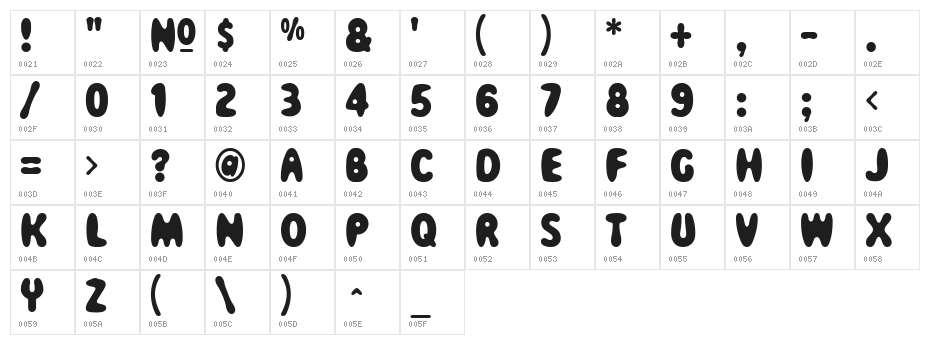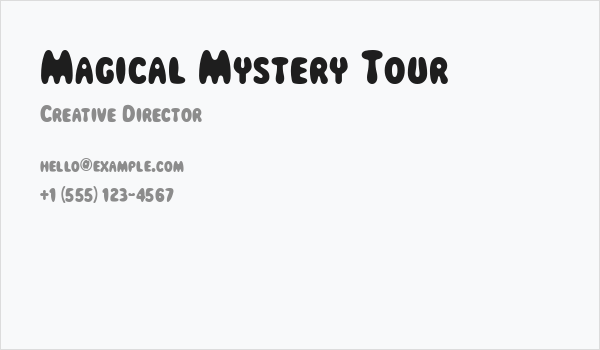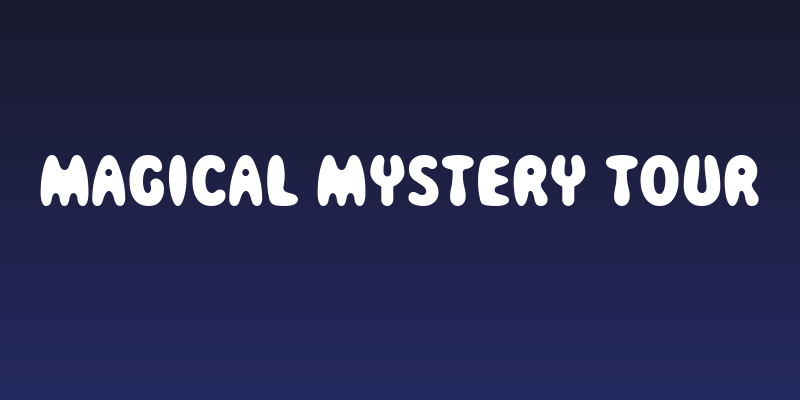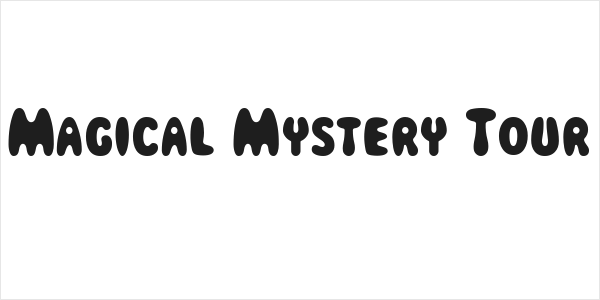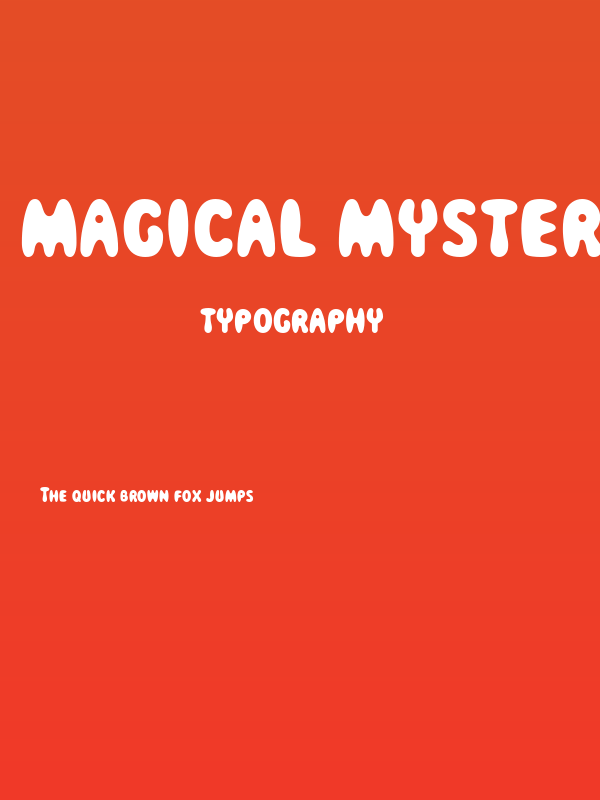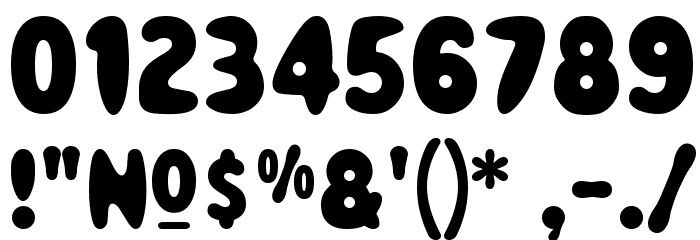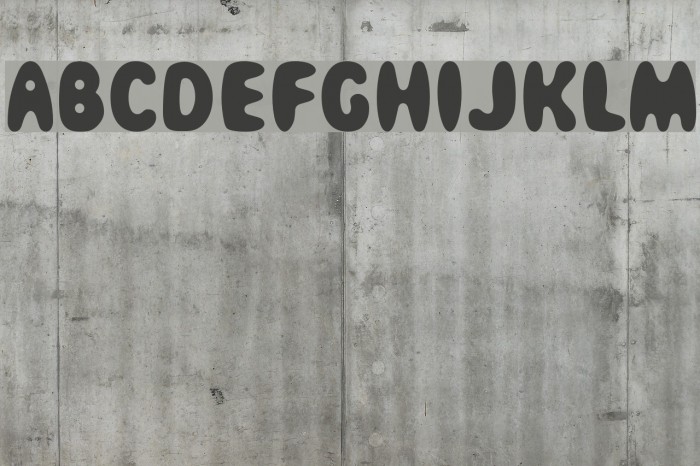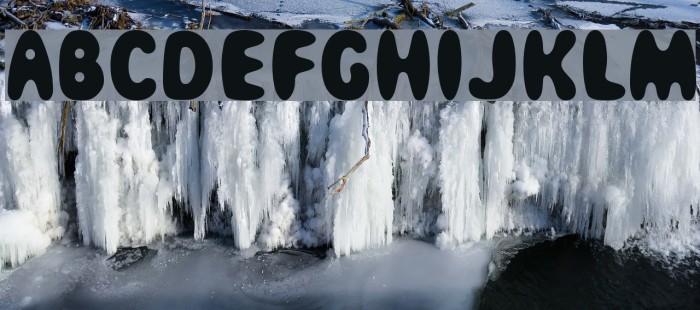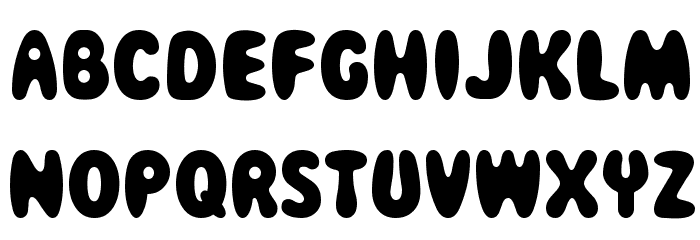
Magical Mystery Tour Font
Magical Mystery Tour Description
This playful and bold font features rounded, bubbly characters that convey a sense of fun and whimsy. The letters are thick and have a uniform stroke width, giving them a strong presence on the page. The rounded edges and lack of sharp angles contribute to a friendly and approachable aesthetic. This font is highly legible, even at smaller sizes, due to its clear and distinct letterforms. The numbers and special characters maintain the same playful style, ensuring consistency across all text elements. Its unique style makes it ideal for projects that require a touch of creativity and imagination.
| Overall Style | Playful, Fun |
| Proposed Projects | Perfect for children's books, playful branding, party invitations, and creative posters. |